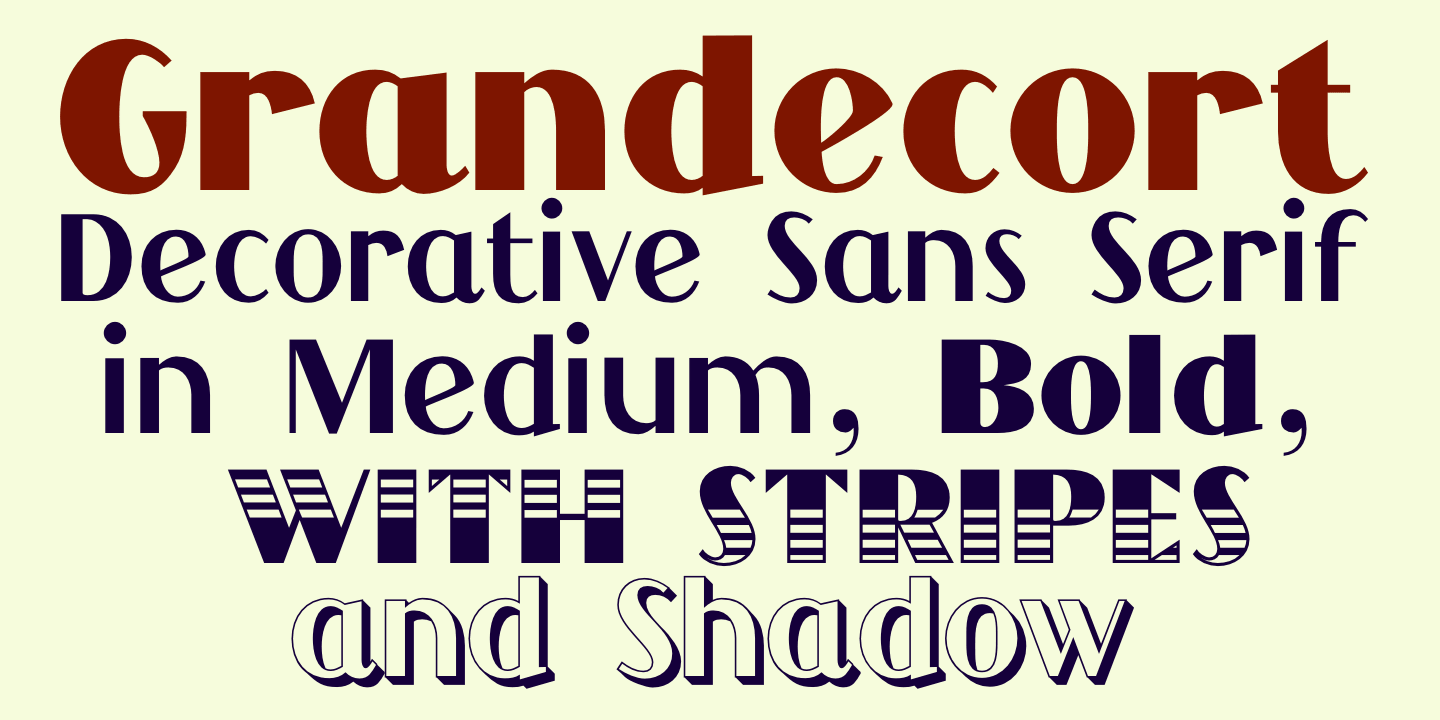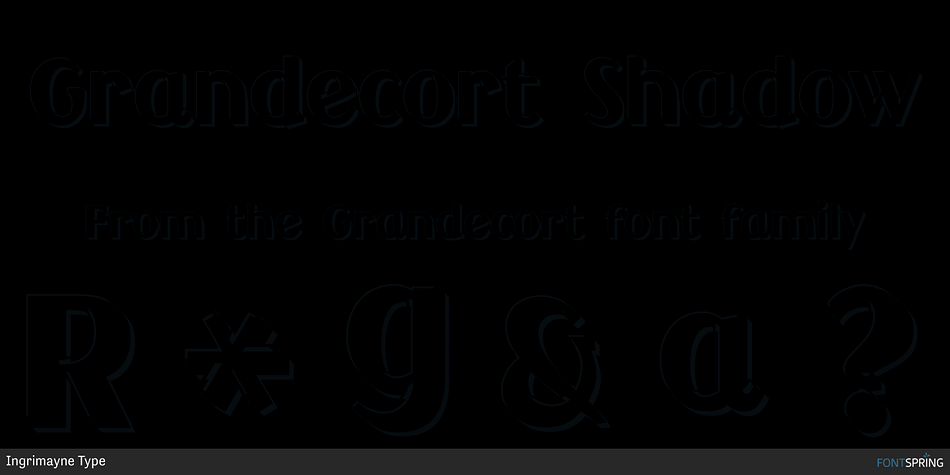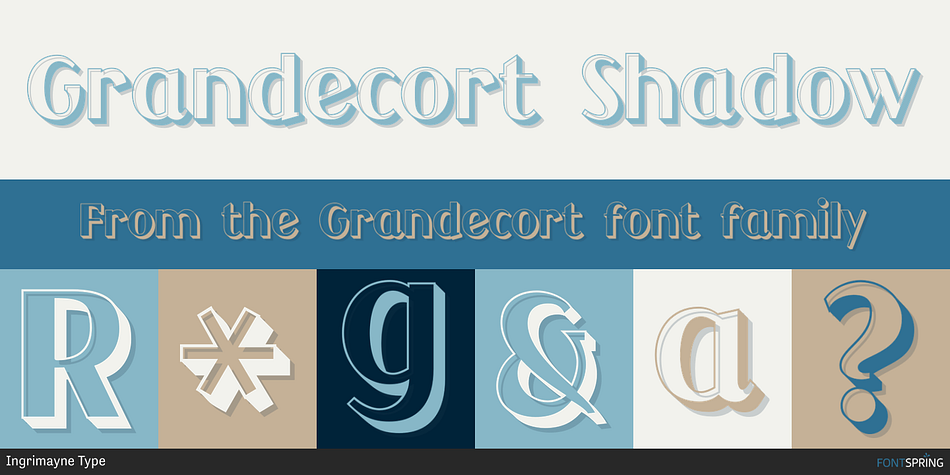
Grandecort Shadow
Designed by Robert Schenk, Grandecort is a display sans font family. This typeface has nine styles and was published by Ingrimayne Type.
Grandecort is derived from the OakPark family. It has lost the serifs, and has moved to a more traditional look. The upper case letters are a bit heavier than the lower case letters, but overall the letter shapes are fairly conventional for a bold, display face.
In later 2018 the family was expanded to 9 fonts. GrancMitStripes was reworked to make four new faces: GrancAllStripes, GrancTopStripes, GrancBottomStripes, and GrancCaps. The last can be used as a background layer for the others. Also, The interior of GrandecortShadow was separated out to form GrandecortShadowInside. It has the same shapes as Grandecort-Regular but the spacing of GrandecortShadow and can be layered with the shadowed style to easily create bi-colored letters.